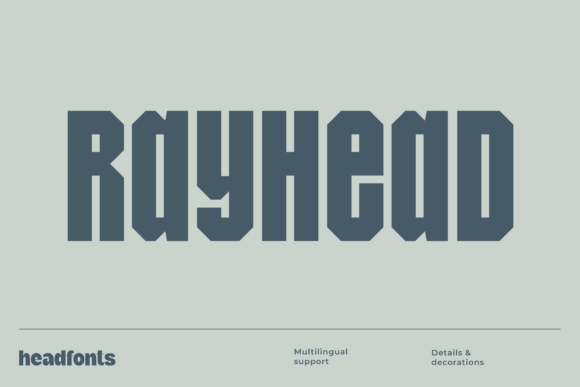
Meet Rayhead, the ultimate sans serif font that merges industrial grit with contemporary flair, ready to elevate your designs with its minimalist yet impactful presence. Immerse yourself in a world where boldness and geometry collide, where straight lines and sharp angles create a font that commands attention.
Rayhead, the brainchild of Headfonts, isn't just a font; it's an attitude. A one-weight font, Rayhead exudes confidence and strength, capturing the essence of industrial might and modern ingenuity. Its geometric precision evokes a sense of order and efficiency, while its contemporary touch adds a dash of sophistication.
Step into the world of industrial aesthetics and let Rayhead guide your designs towards greatness. Whether you're crafting logos that demand attention or creating headers and banners that leave a lasting impression, Rayhead is your trusted companion. Its versatility extends beyond branding, seamlessly adapting to small articles and occasional text, adding a touch of rugged charm to your written expressions.
Imagine a font that perfectly captures the essence of industrial chic, a font that harmonizes strength and grace, grit and refinement. Rayhead is that font. It's the perfect choice for designs that demand attention, for projects that aim to make a statement.
But Rayhead's allure goes beyond its visual prowess. It's a font that resonates with emotions, evoking a sense of nostalgia for industrial heritage while simultaneously embracing the modern zeitgeist. It's a font that speaks to the soul, stirring memories of factories and workshops, of hard work and innovation.
When you choose Rayhead, you're not just downloading a font; you're embarking on a creative journey, a journey where industrial charm meets contemporary elegance. Let Rayhead ignite your imagination and transform your designs into masterpieces of minimalism and impact.